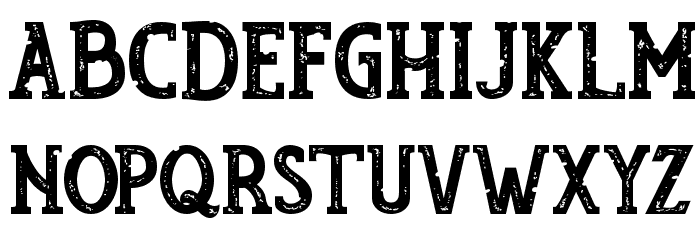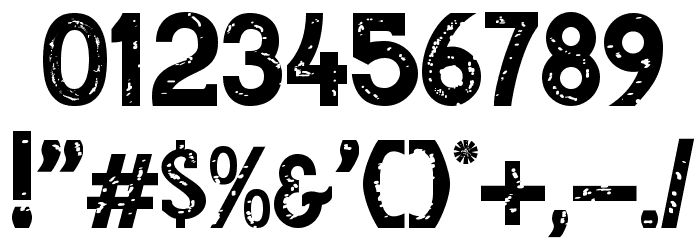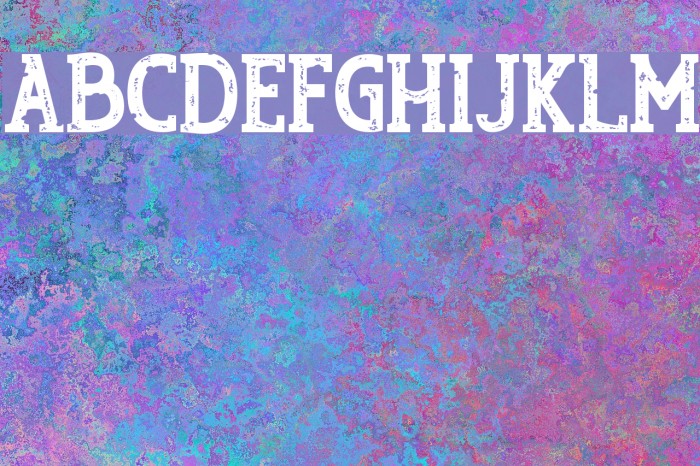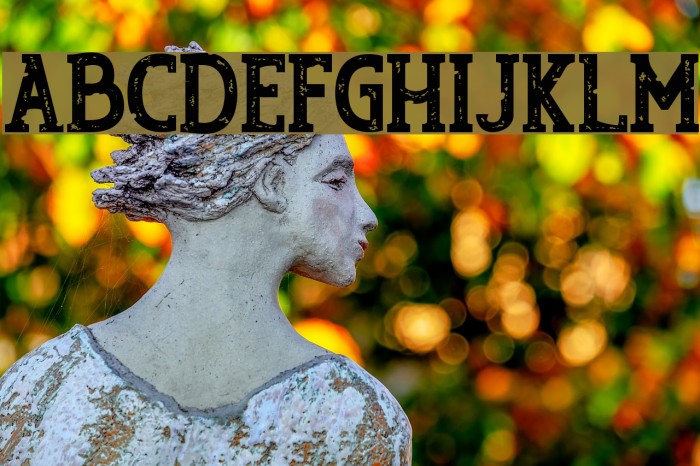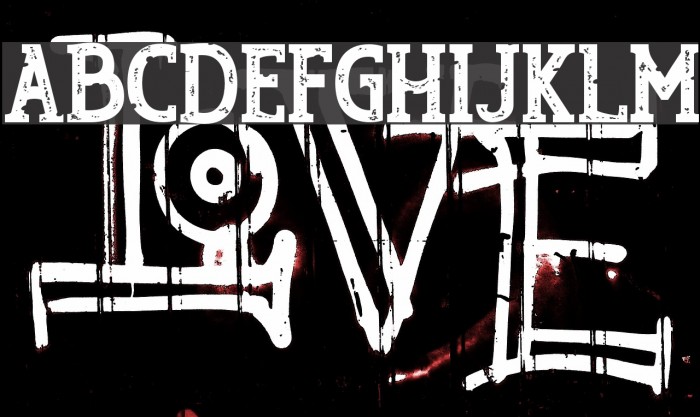
Rumoura TexturesPERSONAL USE Font
This font features a bold, textured design that gives it a rugged, distressed appearance. The characters are uniformly bold with a consistent texture that mimics a worn or weathered look, adding a vintage or industrial feel. The uppercase and lowercase letters maintain a strong presence, making them suitable for impactful designs. The numbers and special characters follow the same textured style, ensuring a cohesive look across all elements. This font's unique texture makes it stand out, ideal for projects that require a bold statement or a touch of rustic charm.
A bold, textured font with a rugged, distressed appearance.
- Proposed Projects: Ideal for posters, logos, branding, and any design needing a vintage or industrial touch.
- Overall Style: Vintage